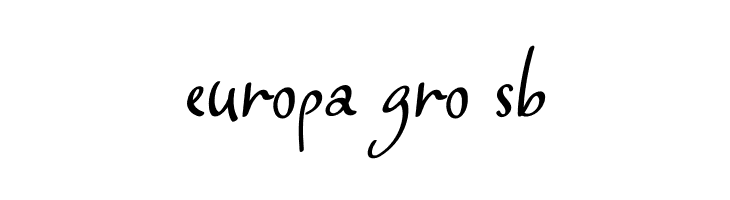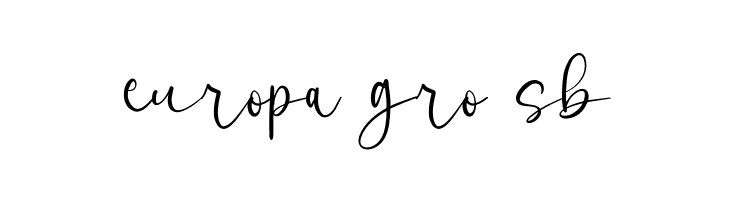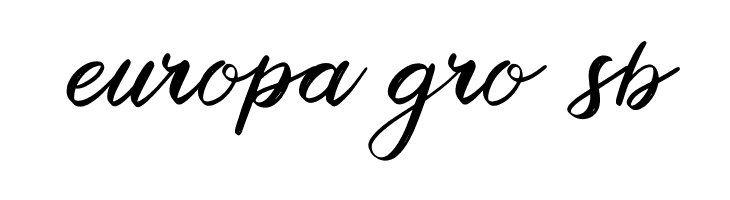
A casual, handwritten font with medium contrast and a dynamic, lively style.
A flowing, cursive script font with elegant, connected characters.
A playful handwritten font with lively, fluid letterforms and smooth strokes.
A dynamic and flowing script font with elegant, cursive letterforms.
A graceful, cursive script font with elegant, flowing strokes.
A casual, elegant handwritten font with flowing, connected letterforms.
A fluid, cursive font with interconnected letters and a natural handwriting style.
A flowing, handwritten font with a casual and elegant style.
A graceful cursive script with smooth, flowing lines and elegant connections.
A graceful, cursive font with elegant loops and swirls.